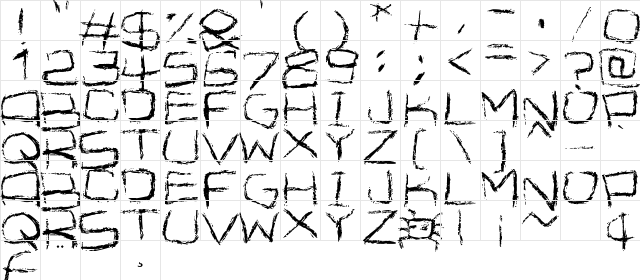
Spidery Regular
Design Context for Spidery Typeface
Spidery is a composed and adaptable typeface that performs quietly and consistently across a wide range of design contexts.
Pro Tip: Use Spidery in both headline and body roles to test its range before committing to a single application.